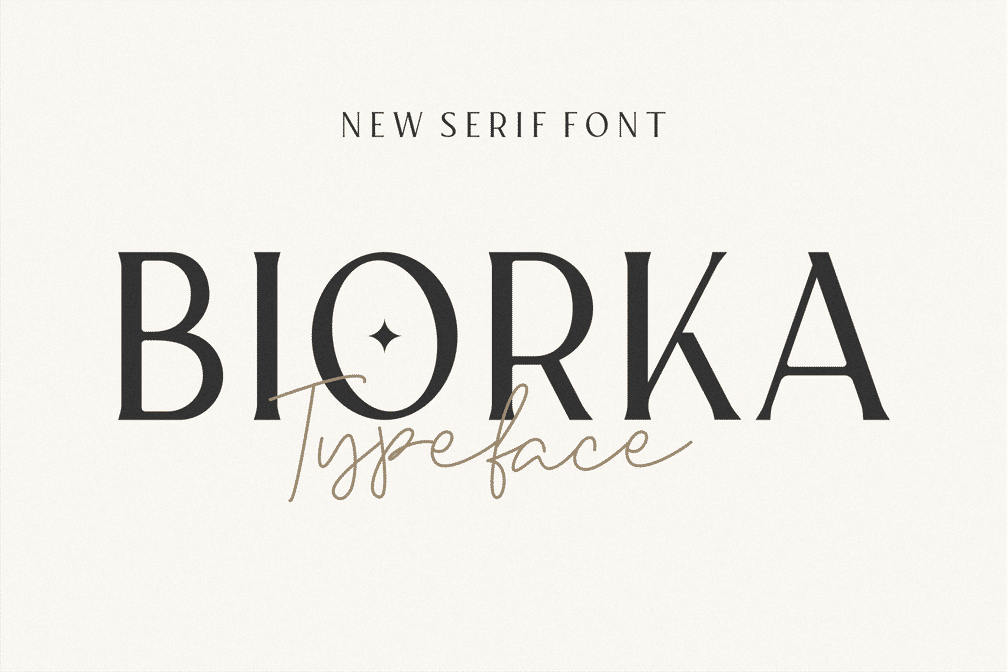
Biorka Serif
Biorka is a serif style font with a slightly thin character so it gives a more luxurious impression to your design, suitable for logo designs, magazine covers, posters, headlines and others.